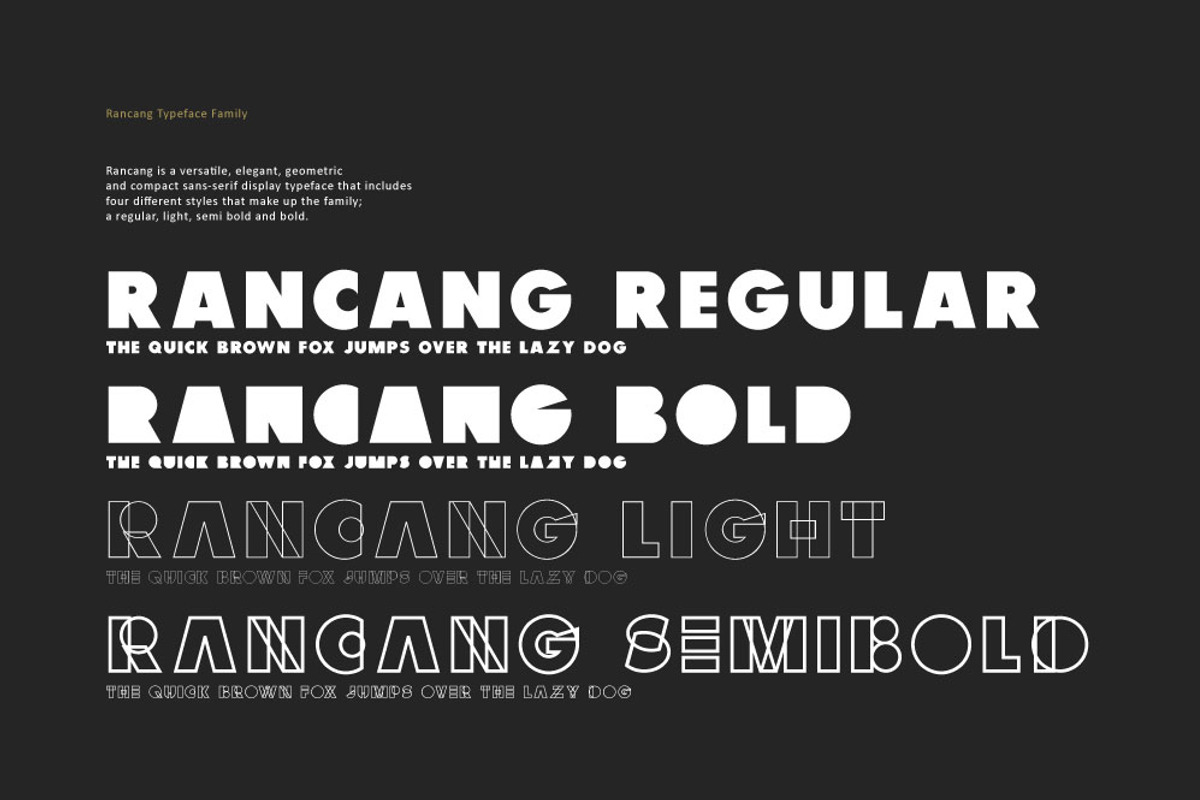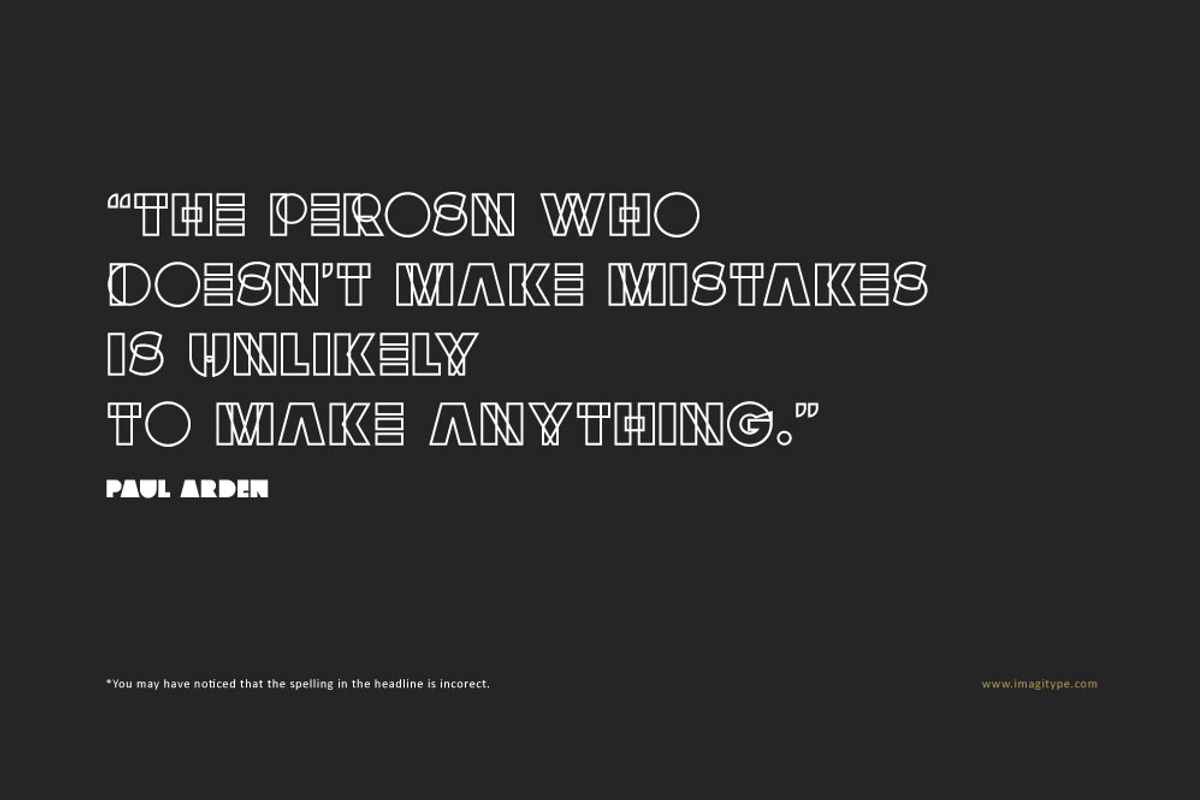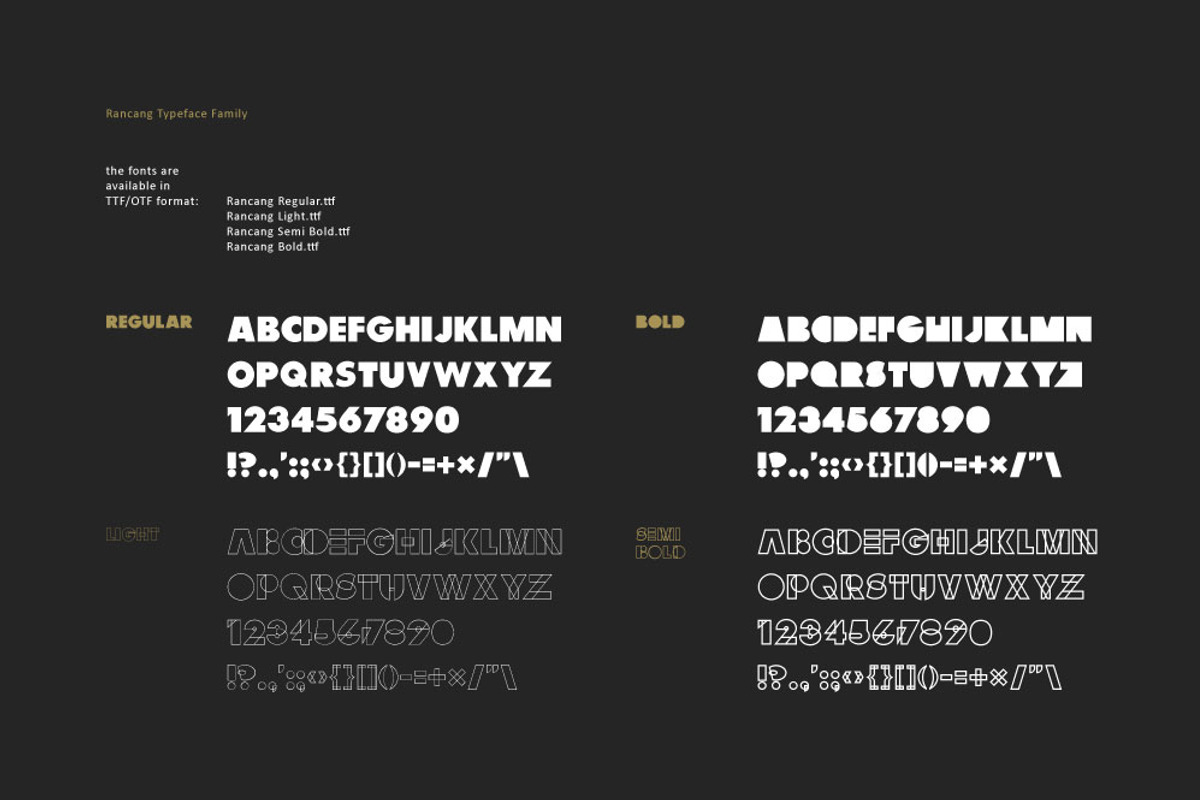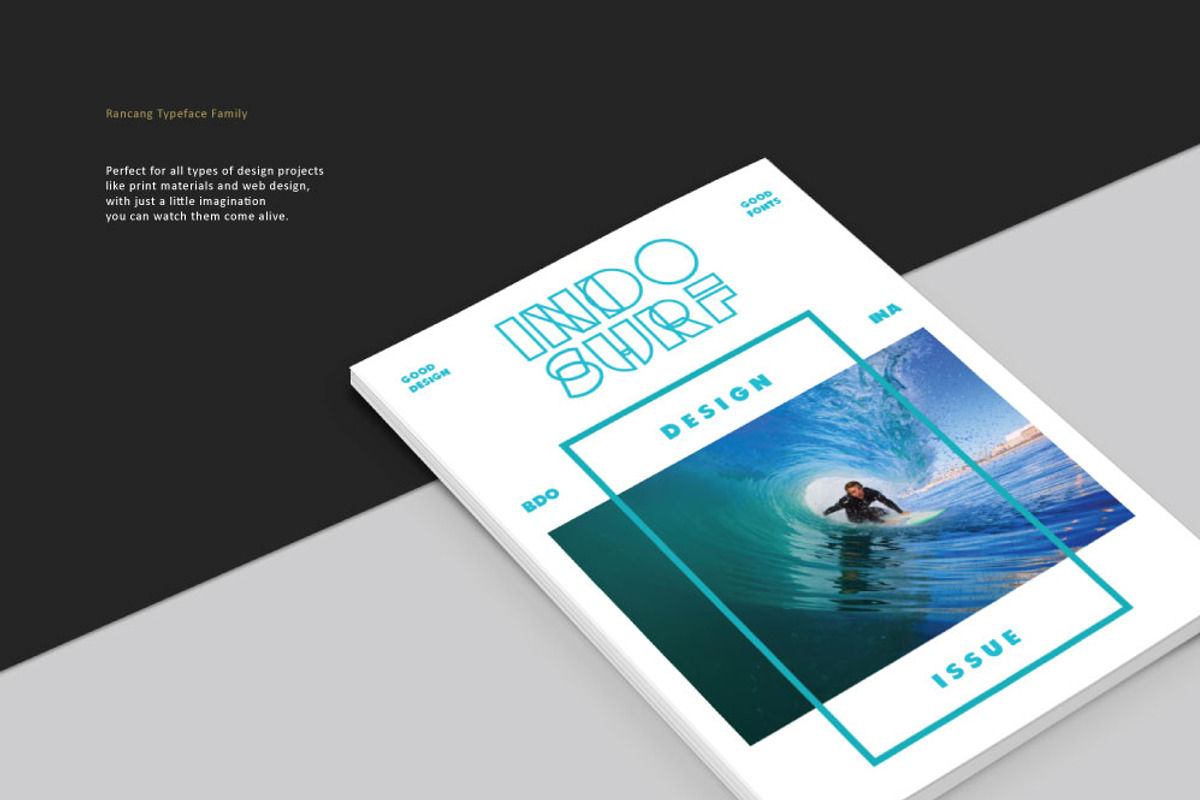
Rancang Typeface
Rancang Typeface by Juru Rancang Studio is a font selected for branding, posters, packaging, typography.
- Rancang is a versatile, elegant, geometric and compact sans-serif display typeface that includes four different styles that make up the fami
Why Rancang Typeface is worth a look
Rancang Typeface by Juru Rancang Studio fits naturally into Branding, posters, packaging, typography.